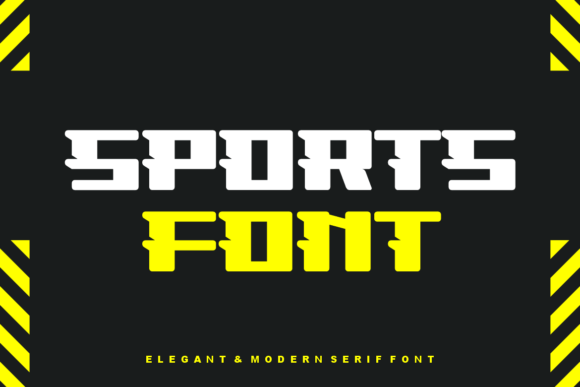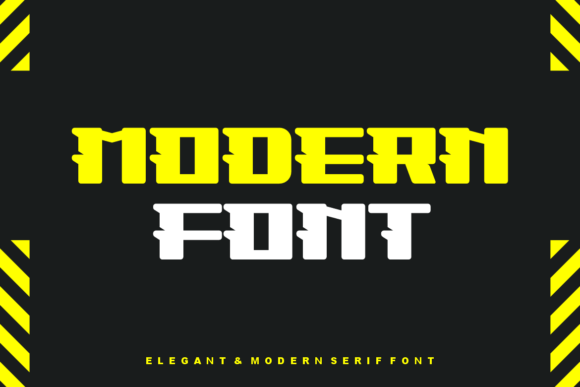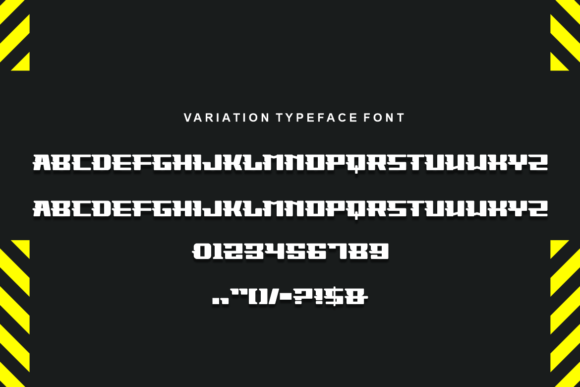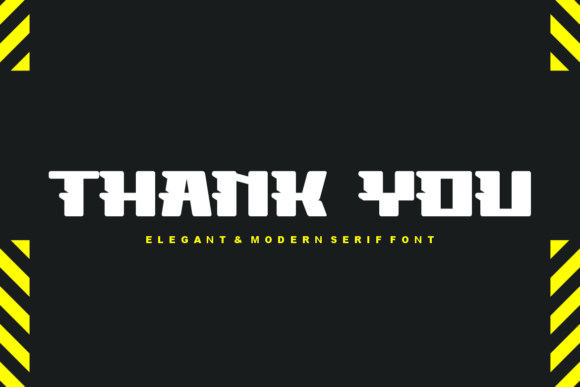
Unleash Your Creativity with Best Ranking: The Ultimate Display Font
Are you tired of using the same old fonts in your design projects? Look no further! Introducing Best Ranking, a cool and modern display font that’s sure to take your creations to the next level. With its unique and stylish design, Best Ranking is the perfect addition to any project, whether you’re a designer, crafter, or simply a DIY enthusiast.
The Power of Typography: Why Fonts Matter
Typography is a crucial aspect of design, and the right font can make all the difference in the success of your project. A well-chosen font can elevate your brand, convey your message, and even influence the emotions of your audience. On the other hand, a poorly chosen font can have the opposite effect, detracting from your message and damaging your brand’s reputation.
What Makes Best Ranking So Special?
So, what sets Best Ranking apart from other fonts? Here are just a few reasons why this font is a cut above the rest:
- Modern and Fresh Design: Best Ranking boasts a sleek and contemporary design that’s perfect for projects that require a modern touch.
- Highly Versatile: This font is suitable for a wide range of projects, from logos and branding to posters, flyers, and more.
- Easy to Read: Despite its stylish design, Best Ranking is highly legible, making it perfect for use in both digital and print applications.
- Unique Character: With its distinctive design, Best Ranking is sure to help your project stand out from the crowd.
How to Use Best Ranking in Your Projects
Adding Best Ranking to your project is easy! Here are a few tips to get you started:
- Use it as a Title Font: Best Ranking is perfect for use as a title font, adding a touch of style and sophistication to your project’s headings.
- Experiment with Different Sizes: Don’t be afraid to experiment with different font sizes to add visual interest to your project.
- Pair it with Other Fonts: Best Ranking pairs well with a variety of other fonts, making it easy to create a unique and harmonious typography scheme.
Why Designers and Crafters Love Best Ranking
Best Ranking has quickly become a favorite among designers and crafters, and for good reason. Here are just a few reasons why:
- Time-Saving: With Best Ranking, you can create professional-looking projects in no time, saving you hours of design time.
- Consistency: This font ensures consistency across all your design projects, helping to establish a strong brand identity.
- Inspiration: Best Ranking is sure to inspire your creativity, helping you to come up with fresh and innovative design ideas.
In conclusion, Best Ranking is a top-notch display font that’s perfect for designers, crafters, and DIY enthusiasts alike. With its modern design, versatility, and ease of use, this font is sure to become a staple in your design toolkit. So why wait? Add Best Ranking to your projects today and experience the difference for yourself!